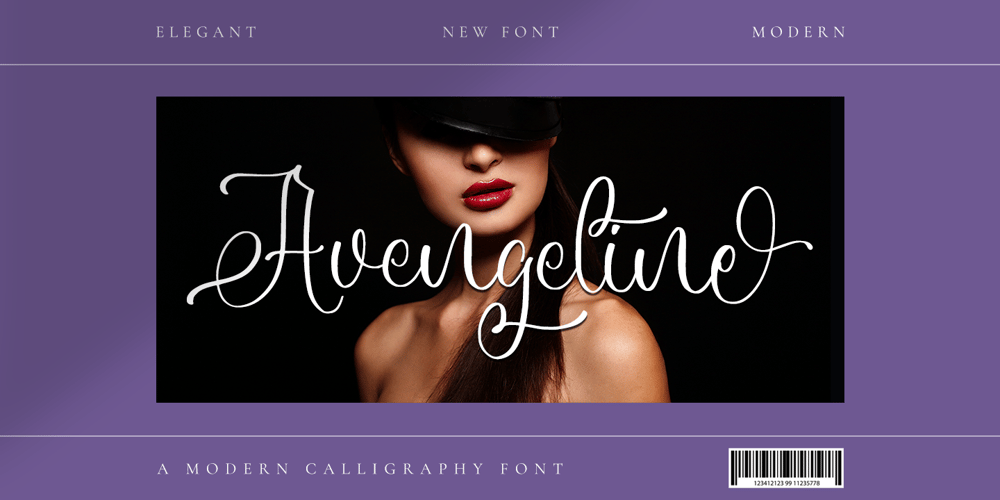
Avengeline Font Family was designed by Hayinah and published by Rockboys Studio. Avengeline contains 1 styles and family package options. Avengeline is a beautiful and refined script font. It has a classy, elegant and modern look that can be used for logos, branding, invitations, stationery, wedding designs, social media posts, and much more!